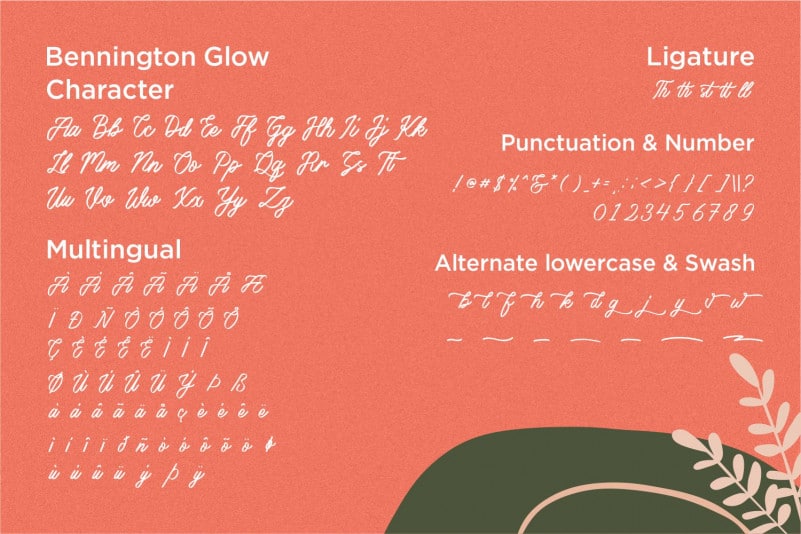
Bennington Script Font
Bennington Script Font is a Brush Lettering Script. Bennington Glow is perfect for product packaging, branding project, megazine, social media, wedding, or just used to express words above the background.